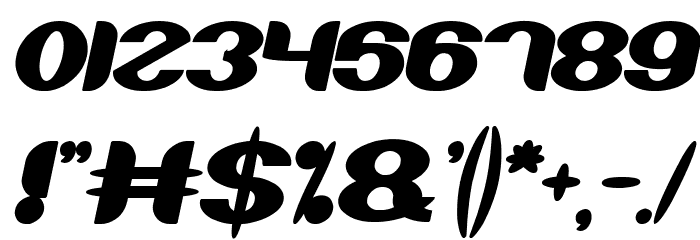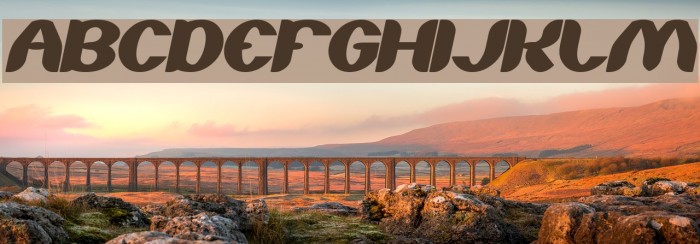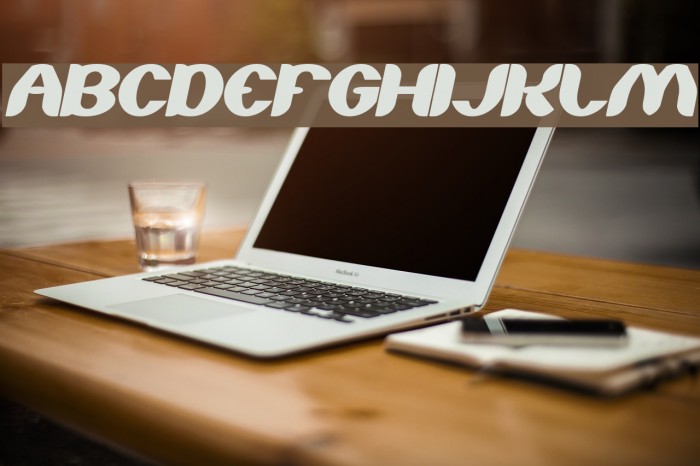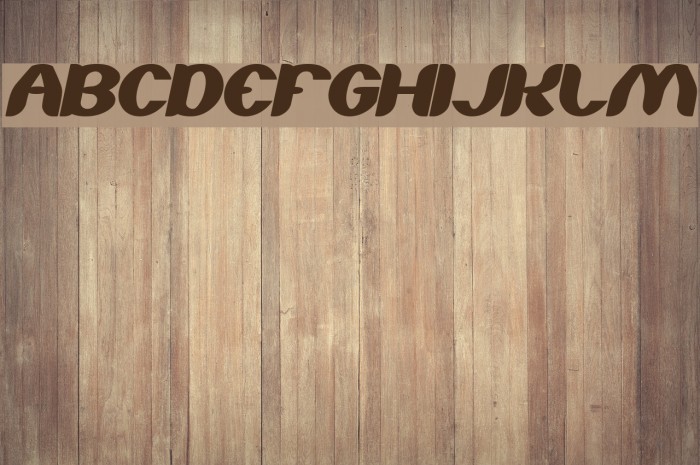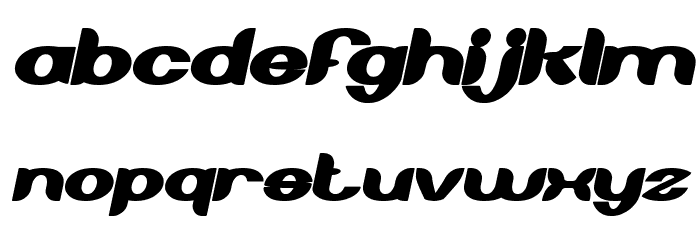
About you Bold Italic Font
About you Bold Italic Description
This font features a bold and italicized style with a playful and dynamic appearance. The characters are rounded and have a flowing, cursive-like quality, giving them a sense of movement and energy. The bold weight ensures strong visibility, while the italic slant adds a touch of elegance and flair. The font maintains a consistent stroke thickness throughout, contributing to its bold presence. It is well-suited for creative and expressive designs, where a sense of fun and personality is desired. The character spacing is relatively tight, enhancing the compact and cohesive look of the text.
A bold, italicized font with a playful, dynamic style and rounded characters from Uncategorized fonts.
- Proposed Projects: Ideal for branding, posters, social media graphics, and any project requiring a lively and bold typeface.